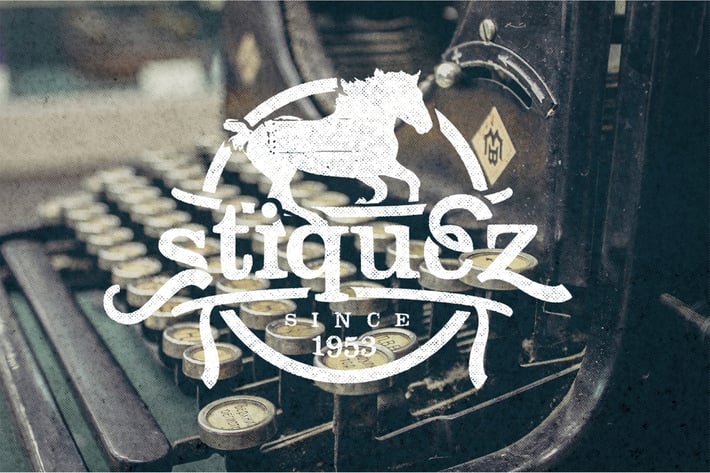
Stiquez Font
With this font you get classic retro display typeface.
Perfect for Logos, Advertising, Music Industry, Apparel Design, Labels, Signage, Etc.